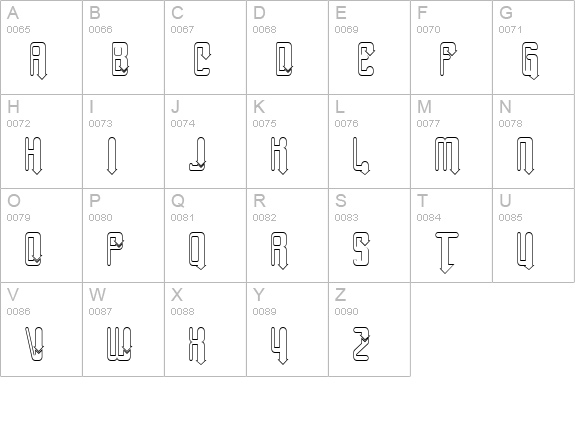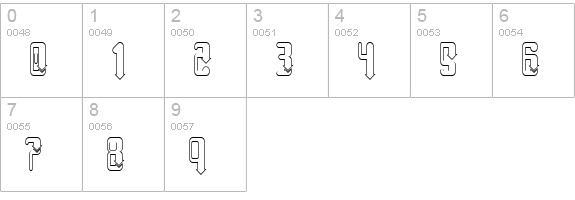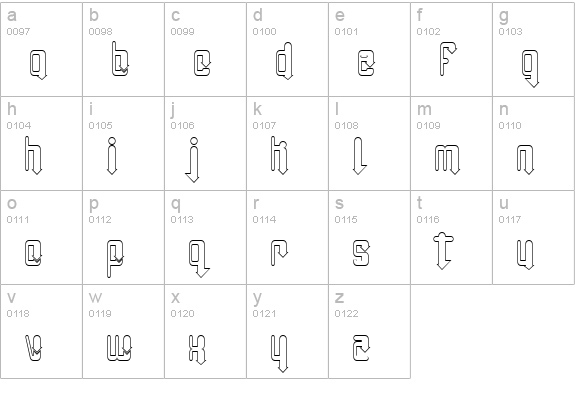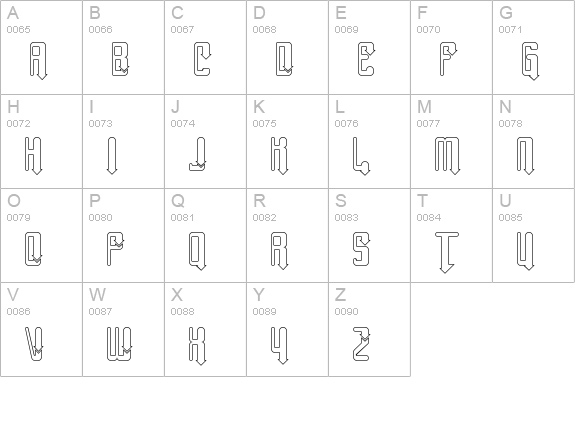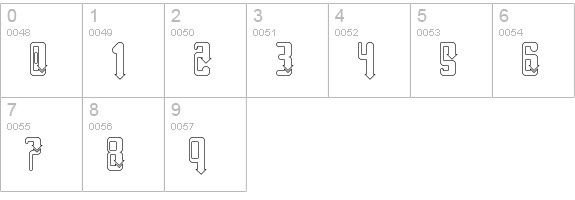
Angie TanLines Font Details
Introducing Angie TanLines - a stylish and modern font that exudes sophistication and elegance. This unique typeface features clean lines and a sleek design that is perfect for a wide range of creative projects. The Angie TanLines font is versatile and can be used for logos, branding, packaging, invitations, and more. What sets Angie TanLines apart is its distinctive character and charm, making it stand out from the crowd. Whether you're looking to add a touch of sophistication to your designs or make a bold statement, this font is sure to impress. Best of all, Angie TanLines is completely free to download at FontsMarket.com. You can easily access this stunning font and elevate your design projects without breaking the bank. Don't miss out on the opportunity to add Angie TanLines to your font collection today!